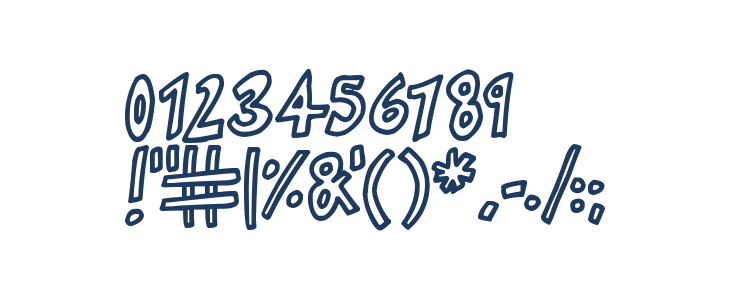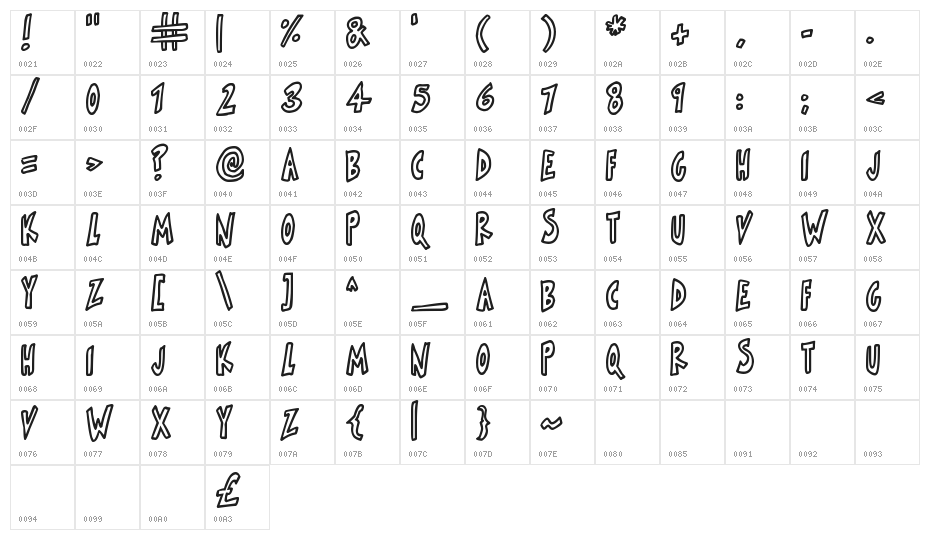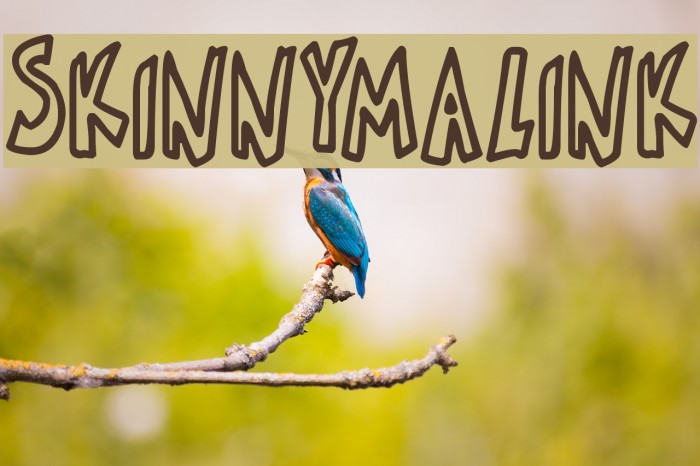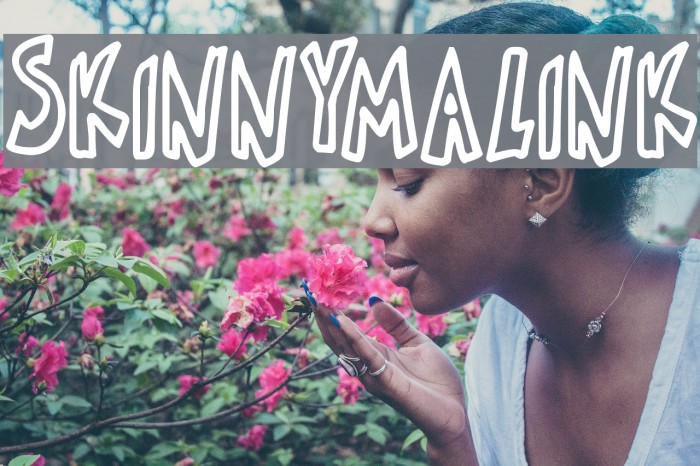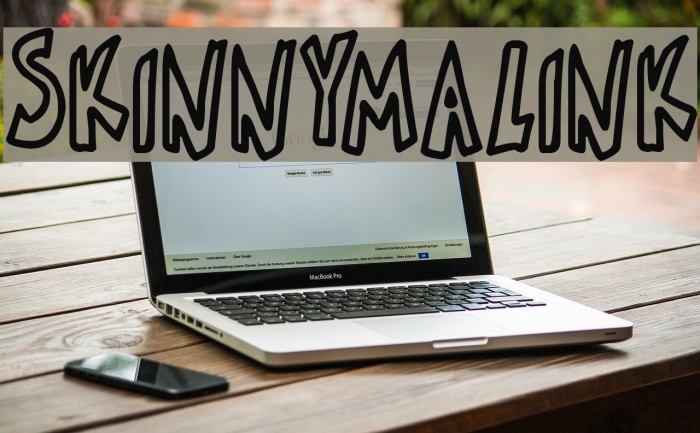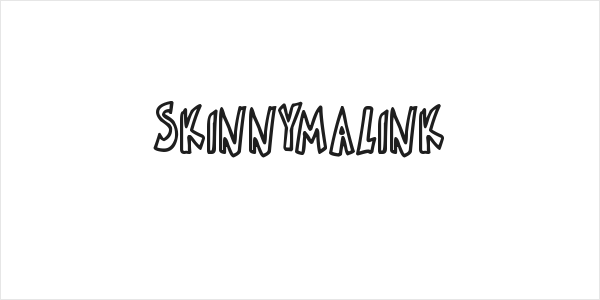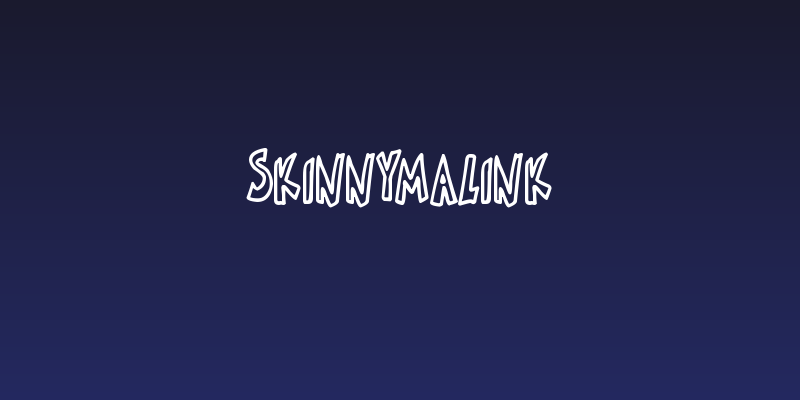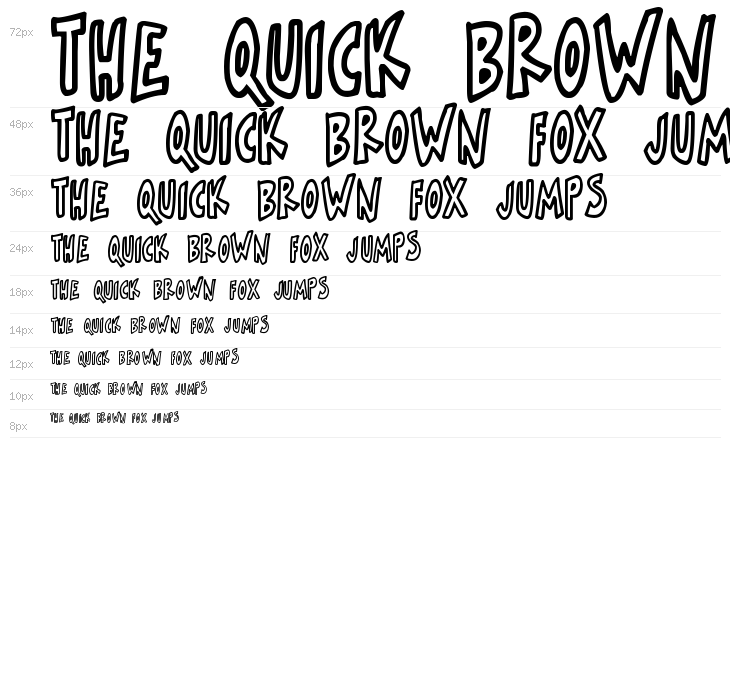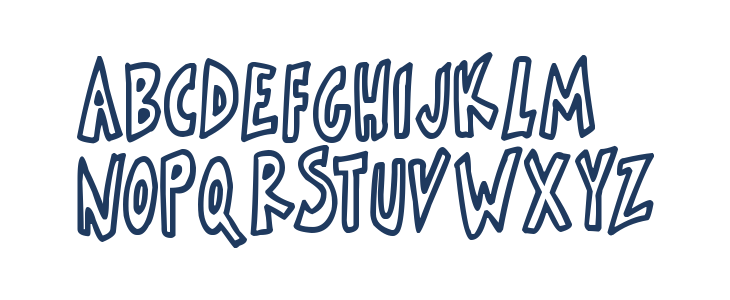
Skinnymalink Font
Skinnymalink Description
This font features a playful and bold design with a hand-drawn aesthetic. The characters are outlined with a thick, uniform stroke, giving them a cartoonish and lively appearance. The letters are slightly irregular, adding to the whimsical feel, and the overall style is informal and fun. The uppercase and lowercase letters maintain a consistent style, with exaggerated curves and angles that create a dynamic look. The numbers and special characters follow the same playful theme, making this font suitable for creative and informal projects.
| Overall Style | Playful, Cartoonish, Informal |
| Proposed Projects | Ideal for children's books, comic strips, playful branding, and party invitations. |